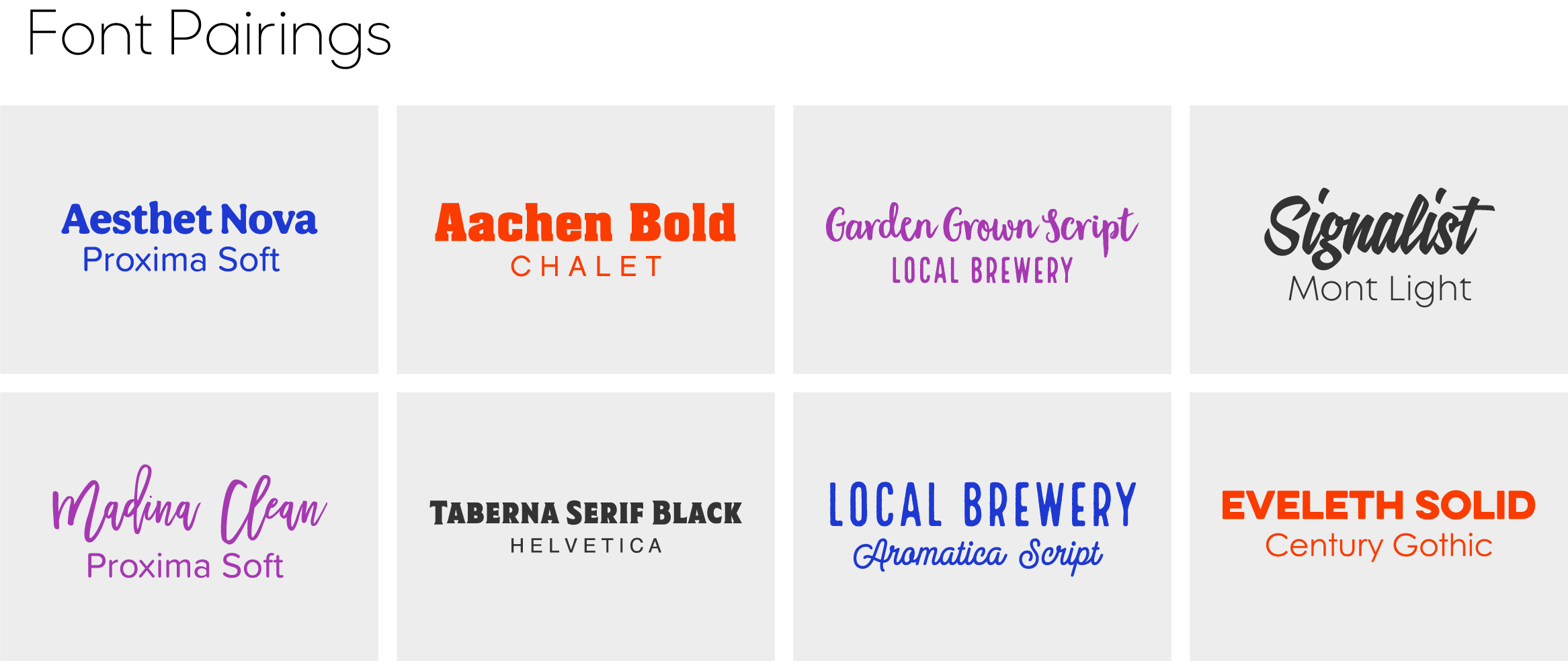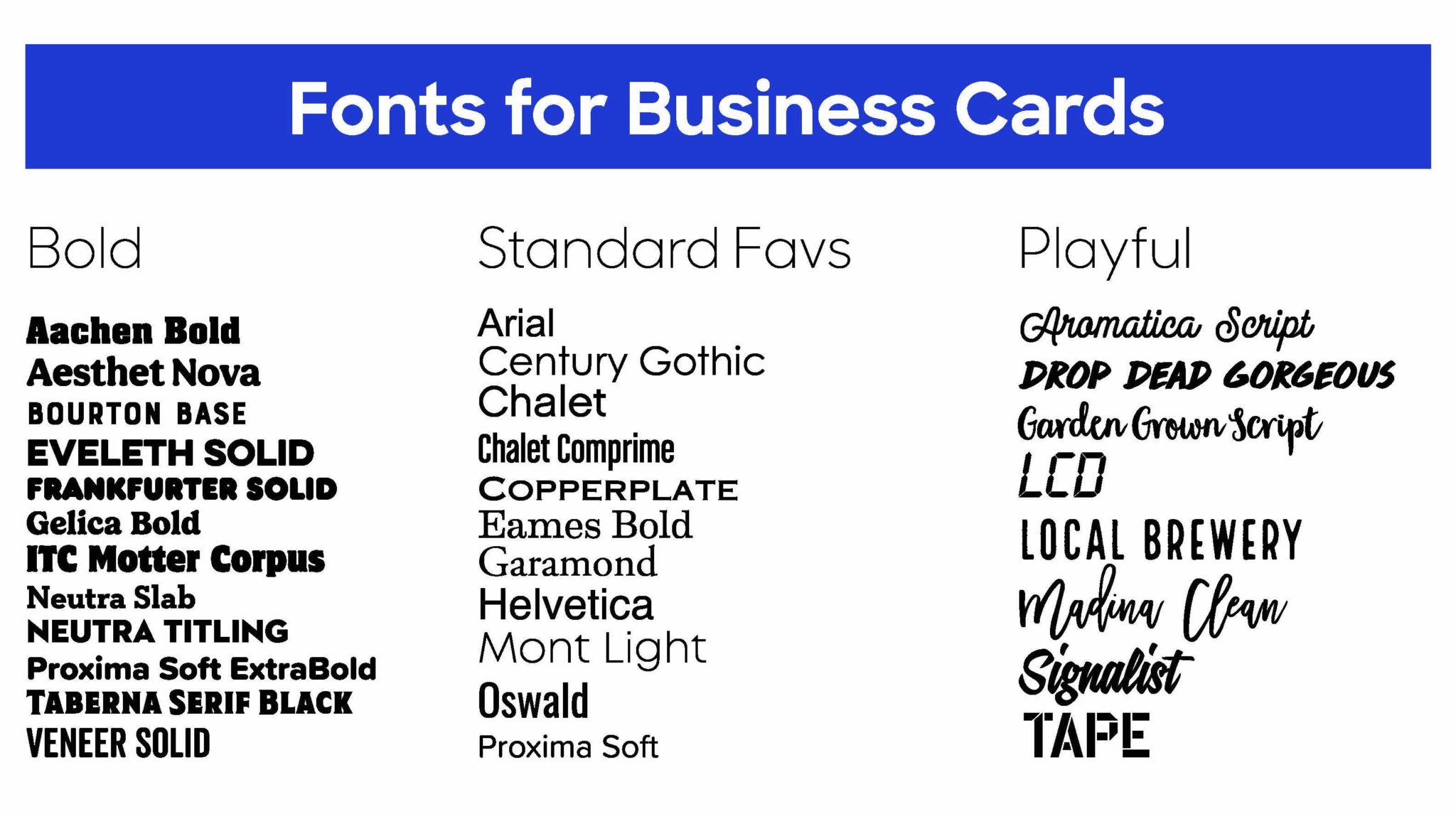
Fonts for Business Cards: Find the Best Font For You
As a company that creates custom business cards, people always ask us, “What is the best font for business cards?” Well, there isn’t one simple answer to that question other than “It depends.” The font or fonts you choose for any of your business branding can be an opportunity to create an important impression. What impression do you want people to have? We’ve assembled lists of our top ten bold, standard, and playful fonts for business cards. We’ve also included answers to the top ten questions people ask about business card fonts below!
Bold Fonts
Is your business… all business? Do you want people to take you seriously? To trust that you know that you’re a leader and really what you’re doing? Then try a bold font like one listed below.
12 Best Bold Fonts for Business Cards
1. Aachen Bold
2. Aesthet Nova
3. Bourton Base
4. Eveleth Solid
5. Frankfurter Solid
6. Gelica Bold
7. ITC Motter Corpus
8. Neutra Slab
9. Neutra Titling
10. Proxima Soft ExtraBold
11. Taberna Serif Black
12. Veneer Solid
Standard Fonts
If your business persona is more subtle and classic, you might opt for a standard font. Straightforward and dependable, the standard fonts show that your customers can count on you.
11 Best Standard Fonts for Business Cards
1. Arial
2. Century Gothic
3. Chalet
4. Chalet Comprime
5. Copperplate
6. Eames Bold
7. Garamond
8. Helvetica
9. Mont Light
10. Oswald
11. Proxima Soft
Playful Fonts
If your business is more about getting loose and having fun, then you might want to try a playful font. Fanciful and active, playful fonts show off your whimsical side and that you don’t take yourself too seriously.
8 Best Playful Fonts for Business Cards
1. Aromatica Script
2. Drop Dead Gorgeous
3. Garden Grown Script
4. LCD
5. Local Brewery
6. Madina Clean
7. Signalist
8. Tape
You can also experiment with mixing fonts to achieve an even more nuanced effect. We’ve put together some options so that you can see how it works, but really, the sky’s the limit.
Top Ten Questions People Ask About Business Card Fonts
1. What font is best for business cards?
It really depends on your business and your taste. Think about how you want to come across and what impression you want people to have of your brand and then look for a font that conveys that.
2. What font is most attractive to customers?
The most attractive font is one that looks nice but is also functional. It’s important to make sure that your font is clear and readable, especially at a smaller point size, because if they can’t read what it says then it doesn’t matter how pretty it is.
3. What is a good font for a card?
You can never go wrong with a classic font like Arial or Helvetica, a bold font like Neutra Slab or Bourton Base, or a playful one like Drop Dead Gorgeous or Local Brewery.
4. What is the most professional font for business?
Arial or Helvetica are two of the most popular and standard fonts around.
5. What font size should business cards be?
Your font size should be 7 or 8pt at the minimum. You can play with sizes to see what looks and fits best depending on what information you want to include.
6. Is font size 10 too small?
Font size 10 is definitely not too small! You could even go a little smaller, just try not to go smaller than 7pt.
7. What font attracts buyers?
It depends on what you’re selling! Think like your customer and what you feel like would entice them to buy what you have to offer. You can’t go wrong with any of the fonts we’ve featured.
8. What is a good font for business logo?
The best way to choose a font for a business logo is to think about the whole design. Do you want it to be clean, modern, retro, or flowery? Think about the shape and the colors you want to use and let that inform your decision. A few suggestions: clean – Century Gothic, modern – Eames Bold, retro – LCD, flowery – Madina Clean. You can also search font descriptions in our Design Lab.
9. How do I choose a font for my business?
Think about how you want your business to look and feel, and how you want people to interact with it. Make a list of terms that go along with this, and then search for fonts with those terms.
10. What font is most pleasing to the eye?
It’s your eye, you tell us! Every eye sees something different, so trust your taste and have fun with it!